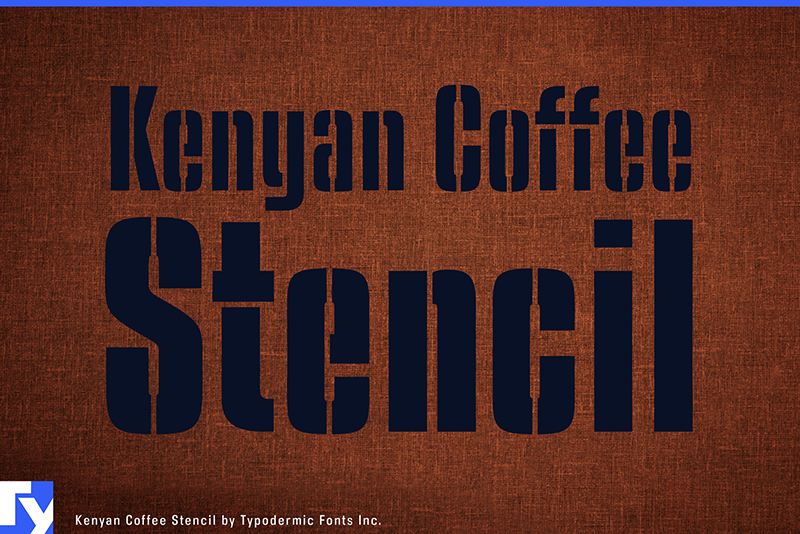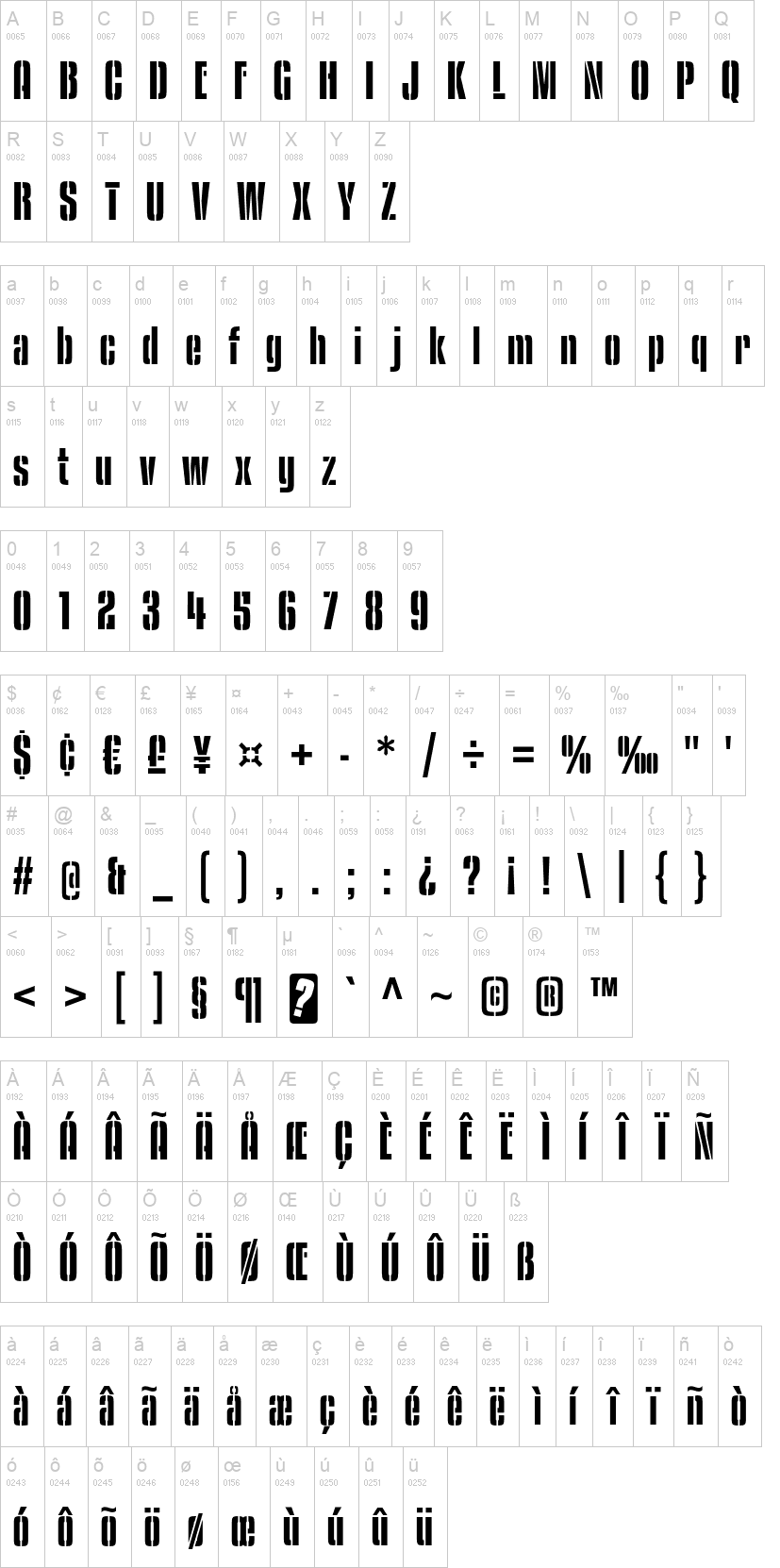
Note of the authorKenyan Coffee Stencil is an industrial/deco headline typeface hybrid. This practical, compact alphabet will instill a sense of integrity and hard-working honesty into your message. It comes in five rugged weights. Most Latin-based European, Vietnamese, Greek, and most Cyrillic-based writing systems are supported, including the following languages. Afaan Oromo, Afar, Afrikaans, Albanian, Alsatian, Aromanian, Aymara, Azerbaijani, Bashkir, Bashkir (Latin), Basque, Belarusian, Belarusian (Latin), Bemba, Bikol, Bosnian, Breton, Bulgarian, Buryat, Cape Verdean, Creole, Catalan, Cebuano, Chamorro, Chavacano, Chichewa, Crimean Tatar (Latin), Croatian, Czech, Danish, Dawan, Dholuo, Dungan, Dutch, English, Estonian, Faroese, Fijian, Filipino, Finnish, French, Frisian, Friulian, Gagauz (Latin), Galician, Ganda, Genoese, German, Gikuyu, Greenlandic, Guadeloupean Creole, Haitian Creole, Hawaiian, Hiligaynon, Hungarian, Icelandic, Igbo, Ilocano, Indonesian, Irish, Italian, Jamaican, Kaingang, Khalkha, Kalmyk, Kanuri, Kaqchikel, Karakalpak (Latin), Kashubian, Kazakh, Kikongo, Kinyarwanda, Kirundi, Komi-Permyak, Kurdish, Kurdish (Latin), Kyrgyz, Latvian, Lithuanian, Lombard, Low Saxon, Luxembourgish, Maasai, Macedonian, Makhuwa, Malay, Maltese, Māori, Moldovan, Montenegrin, Nahuatl, Ndebele, Neapolitan, Norwegian, Novial, Occitan, Ossetian (Latin), Papiamento, Piedmontese, Polish, Portuguese, Quechua, Rarotongan, Romanian, Romansh, Russian, Rusyn, Sami, Sango, Saramaccan, Sardinian, Scottish Gaelic, Serbian, Serbian (Latin), Shona, Sicilian, Silesian, Slovak, Slovenian, Somali, Sorbian, Sotho, Spanish, Swahili, Swazi, Swedish, Tagalog, Tahitian, Tajik, Tatar, Tetum, Tongan, Tshiluba, Tsonga, Tswana, Tumbuka, Turkish, Turkmen (Latin), Tuvaluan, Ukrainian, Uzbek, Uzbek (Latin), Venda, Venetian, Vepsian, Vietnamese, Võro, Walloon, Waray-Waray, Wayuu, Welsh, Wolof, Xavante, Xhosa, Yapese, Zapotec, Zarma, Zazaki, Zulu and Zuni.